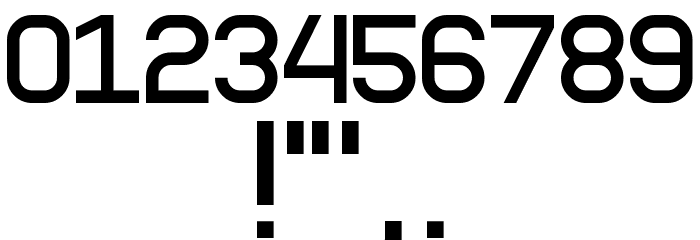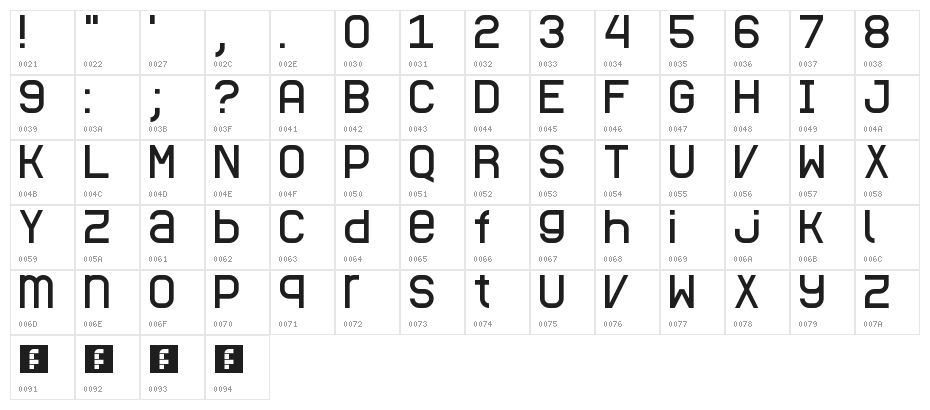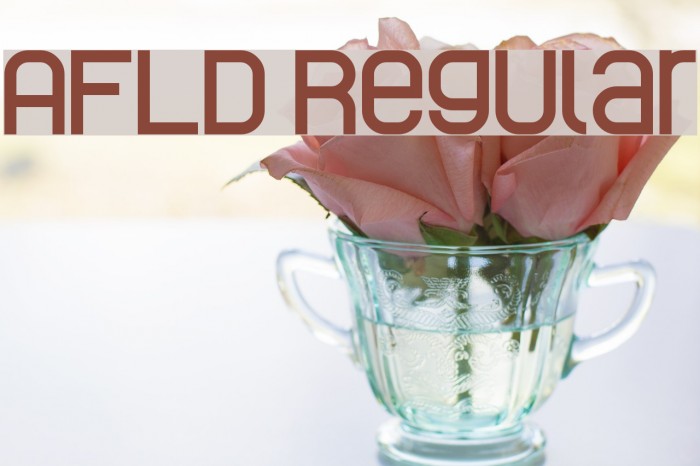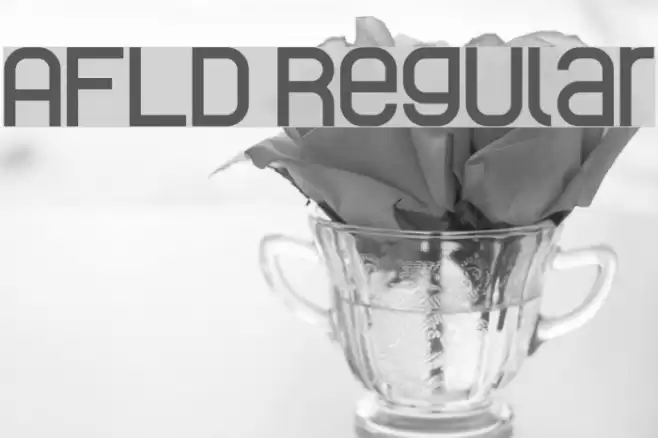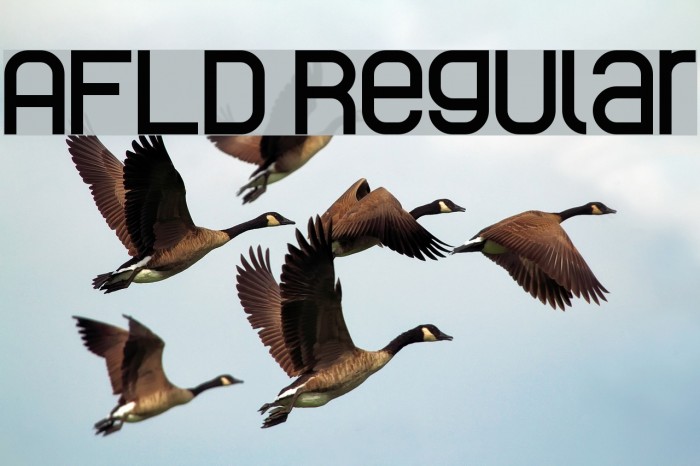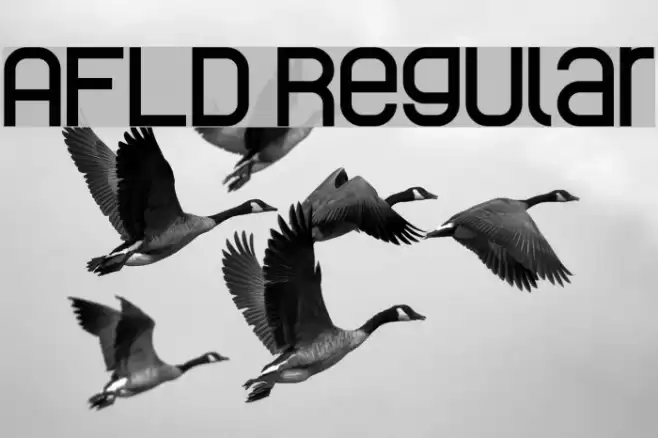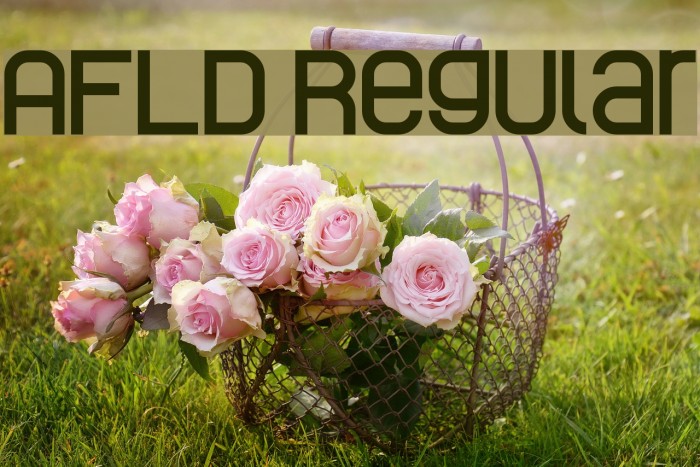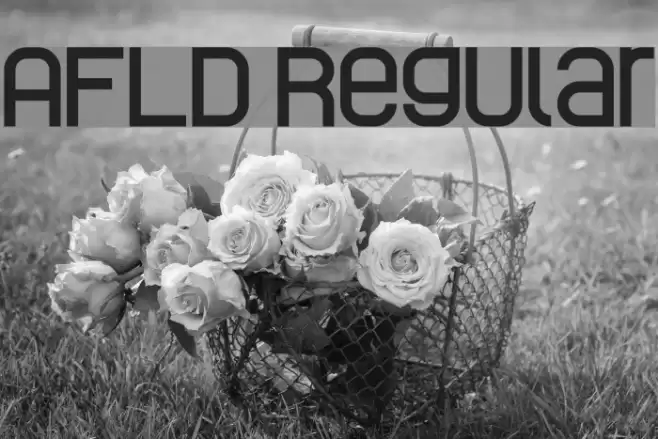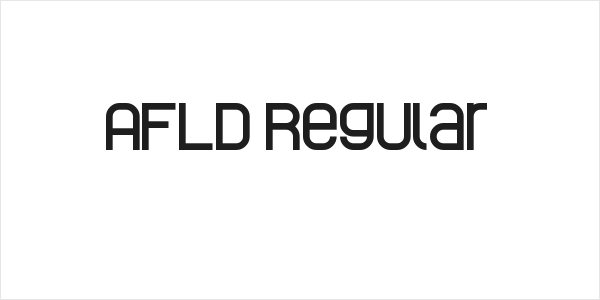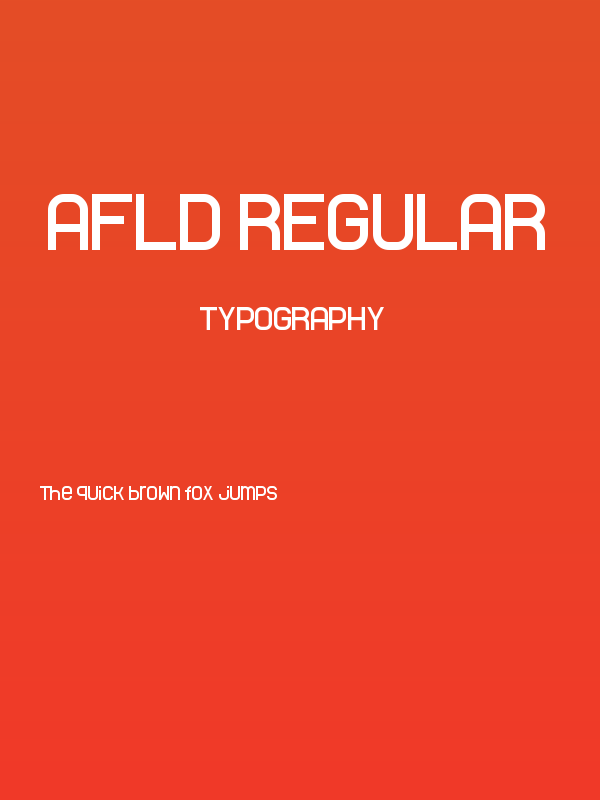
AFLD Regular Font
AFLD Regular Description
This font features a geometric and modern design with clean, straight lines and rounded edges. The uppercase and lowercase letters maintain a consistent height, giving it a uniform appearance. The numerals are bold and clear, making them easily readable. The special characters are designed to match the overall style, ensuring a cohesive look across all elements. Its simplicity and clarity make it suitable for various applications, from digital interfaces to print media.
| Proposed Projects | Ideal for digital interfaces, branding, signage, and print media where clarity and modern aesthetics are desired. |